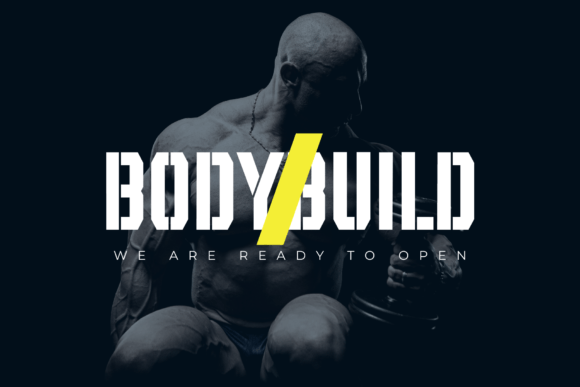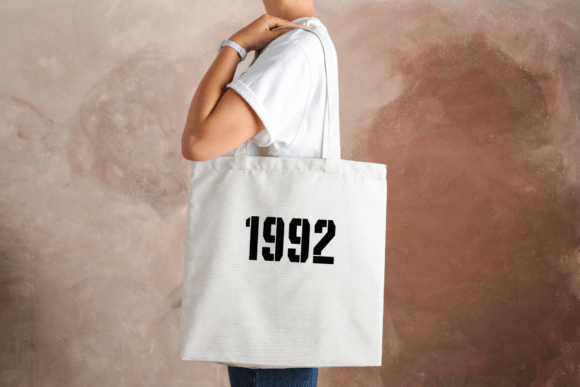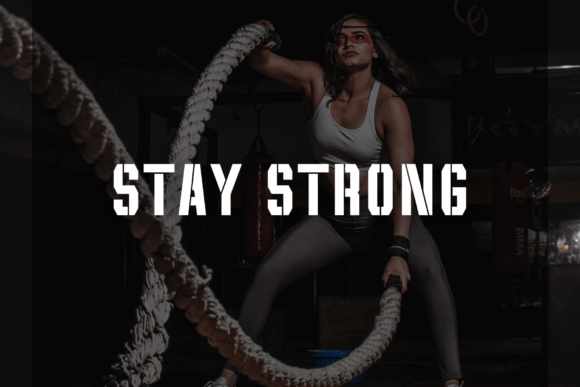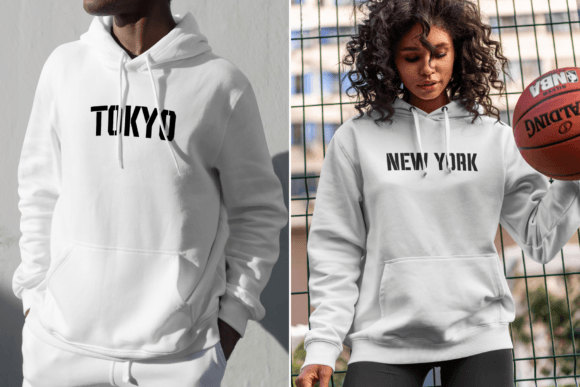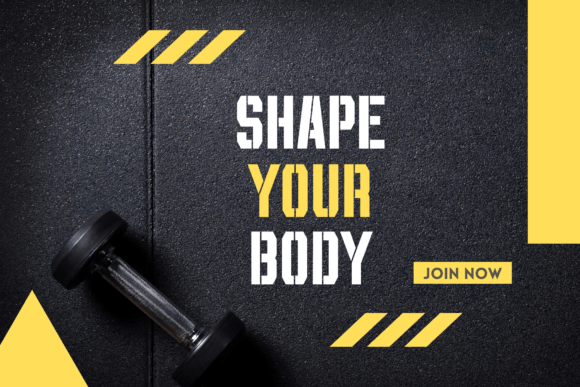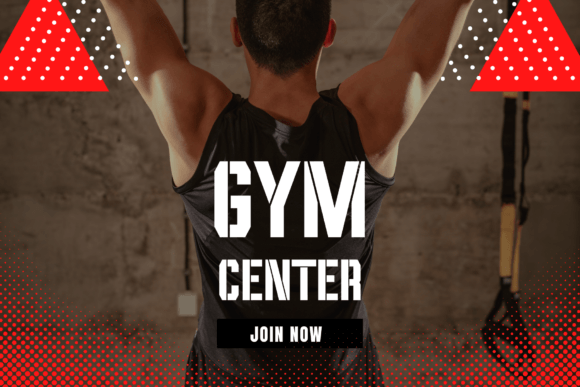
Eagle Font: A Modern Display Font for Stunning Creations
In the world of typography, fonts play a crucial role in conveying messages, expressing emotions, and creating visual identities. For designers and crafters, finding the right font can make all the difference in elevating their projects from ordinary to extraordinary. This is where Eagle Font comes in – a modern display font that is both easy-to-spot and highly versatile. In this article, we’ll dive into the features, benefits, and uses of Eagle Font, and explore why it’s a wonderful asset to your font library.
What is Eagle Font?
Eagle Font, also known as Stencil Font, is a meticulously crafted and highly detailed display font. Its sleek and modern design makes it perfect for a wide range of applications, from branding and advertising to crafting and DIY projects. The font’s unique characteristics, such as its clean lines, precise cuts, and bold appearance, make it an excellent choice for headlines, titles, and emphasis text.
Key Features of Eagle Font
- Easy-to-spot: Eagle Font is designed to grab attention, making it ideal for titles, headings, and emphasis text.
- Modern display font: Its sleek and contemporary design ensures that your creations look fresh and up-to-date.
- Highly detailed: The font’s intricate details and precise cuts make it perfect for high-resolution prints and digital displays.
- Versatile: Eagle Font can be used for a wide range of projects, from branding and advertising to crafting and DIY.
Benefits of Using Eagle Font
- Enhance your creations: Eagle Font has the potential to elevate any project, adding a touch of sophistication and style.
- Save time: With its clear and legible design, Eagle Font ensures that your message gets across quickly and effectively.
- Increase visibility: The font’s bold and attention-grabbing appearance makes it perfect for titles, headings, and emphasis text.
- Stand out from the crowd: Eagle Font’s unique design ensures that your creations will stand out in a crowded marketplace.
Uses of Eagle Font
Eagle Font is an incredibly versatile font that can be used for a wide range of projects, including:
- Branding and advertising: Use Eagle Font to create eye-catching logos, posters, and advertisements.
- Crafting and DIY: Add a touch of elegance to your crafting and DIY projects, such as signs, banners, and decorations.
- Digital displays: Eagle Font is perfect for digital displays, such as social media graphics, presentations, and website headers.
- Print materials: Use Eagle Font for print materials, such as brochures, flyers, and business cards.
| Font Name | Eagle Font |
| Author | Cotton White Studio |
In conclusion, Eagle Font is a modern display font that is both easy-to-spot and highly versatile. Its sleek design, precise cuts, and bold appearance make it perfect for a wide range of applications. Whether you’re a designer, crafter, or DIY enthusiast, Eagle Font is a wonderful asset to your font library. With its ability to enhance any creation, save time, increase visibility, and stand out from the crowd, Eagle Font is a must-have font for anyone looking to elevate their projects.